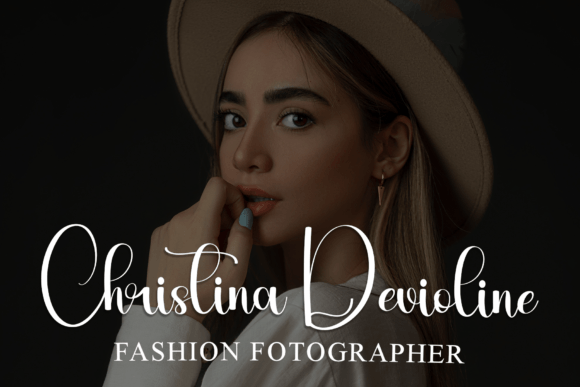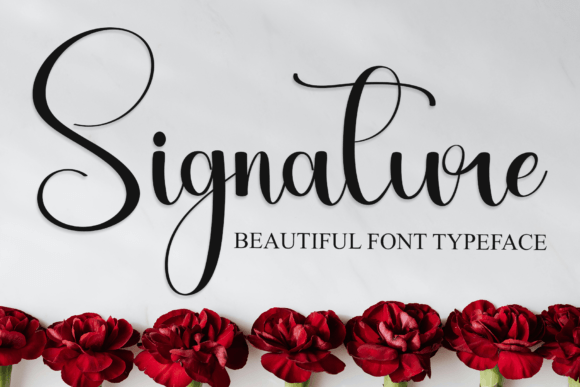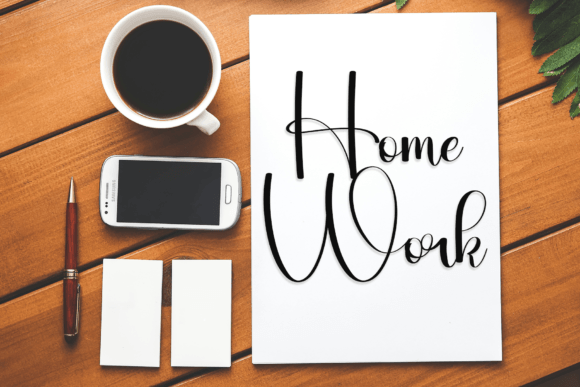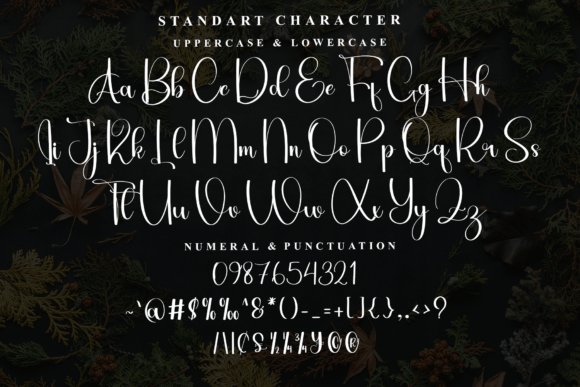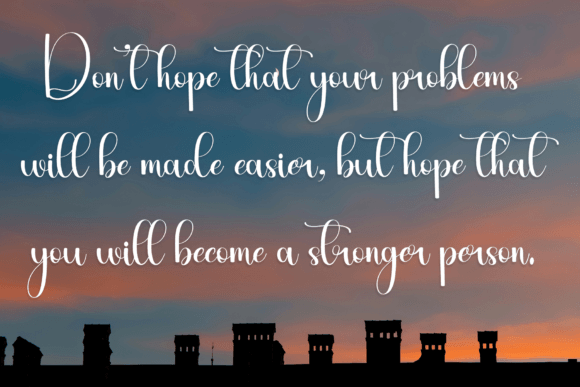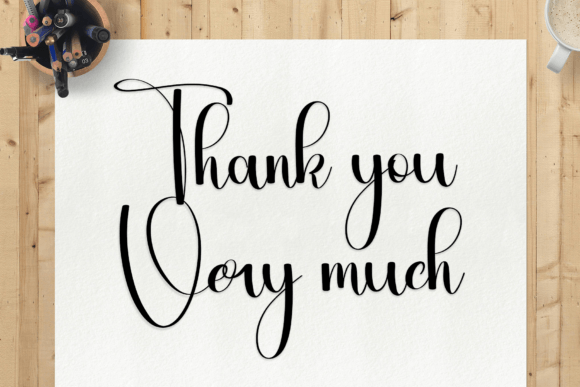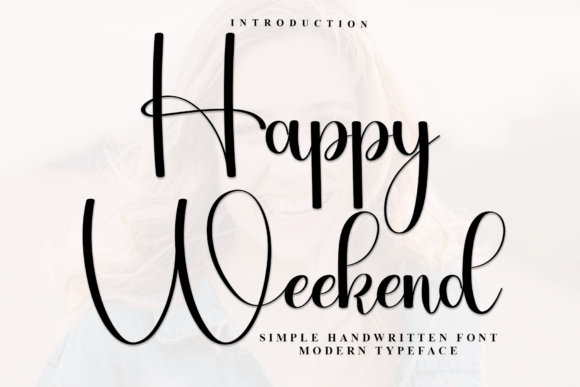
Introducing Happy Weekend Font: Elevate Your Designs with Elegance and Flair
Are you on the hunt for a font that adds a touch of sophistication and whimsy to your creative projects? Look no further than the Happy Weekend Font, a delicate, elegant, and flowing handwritten font that’s sure to bring your designs to life. In this article, we’ll dive into the features and benefits of this beautiful font, and explore how it can elevate your designs and take your creativity to the next level.
A Delicate and Elegant Handwritten Font
Happy Weekend Font is a stunning example of a handwritten font done right. Its delicate and elegant strokes evoke a sense of refinement and poise, making it perfect for designs that require a touch of sophistication. The font’s flowing lines and curves create a sense of movement and fluidity, adding a dynamic feel to any design.
Beautifully Balanced Characters
One of the standout features of Happy Weekend Font is its beautifully balanced characters. Each letter has been carefully crafted to ensure that it looks great on its own and in combination with other letters. This attention to detail makes the font incredibly versatile, allowing it to match a wide range of designs and styles. Whether you’re working on a logo, a poster, or a social media graphic, Happy Weekend Font is sure to fit right in.
PUA Coded for Easy Access to Glyphs and Ligatures
Happy Weekend Font is PUA (Private Use Area) coded, which means that you can access all the amazing glyphs and ligatures easily. This feature is a game-changer for designers and crafters who want to add an extra layer of creativity to their work. With PUA coding, you can easily access and use the font’s built-in swashes, ornaments, and other special characters to create unique and eye-catching designs.
So, what can you create with Happy Weekend Font? The possibilities are endless! Here are a few ideas to get you started:
• Logos and Branding: Use Happy Weekend Font to create a beautiful and elegant logo that sets your brand apart.
• Posters and Flyers: Add a touch of sophistication to your posters and flyers with this stunning handwritten font.
• Social Media Graphics: Elevate your social media graphics with Happy Weekend Font’s delicate and elegant strokes.
• Stationery and Invitations: Use this font to create beautiful stationery and invitations that are sure to impress.
Why Choose Happy Weekend Font?
With so many fonts on the market, why choose Happy Weekend Font? Here are just a few reasons:
• Unique and Eye-Catching: Happy Weekend Font is a one-of-a-kind font that’s sure to grab attention.
• Versatile: This font can be used in a wide range of designs and styles.
• Elegant and Sophisticated: Happy Weekend Font adds a touch of refinement and poise to any design.
• Easy to Use: With PUA coding, you can easily access and use the font’s glyphs and ligatures.
In conclusion, Happy Weekend Font is a beautiful and elegant handwritten font that’s perfect for designers and crafters who want to add a touch of sophistication and whimsy to their creative projects. With its delicate and flowing strokes, beautifully balanced characters, and PUA coding, this font is sure to elevate your designs and take your creativity to the next level. So why wait? Download Happy Weekend Font today and start creating stunning designs that will leave a lasting impression!